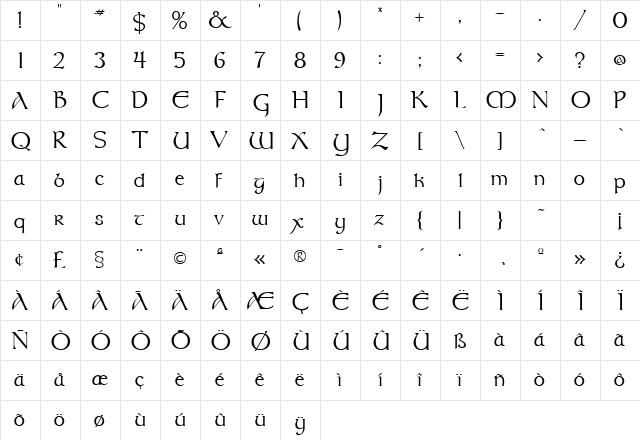
Mouth Regular
Design Context for Mouth Typeface
Mouth is a composed and adaptable typeface that performs quietly and consistently across a wide range of design contexts.